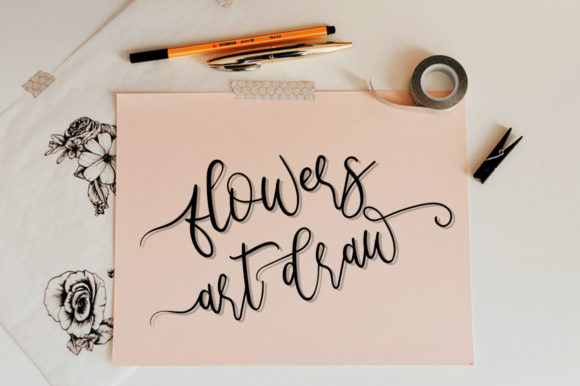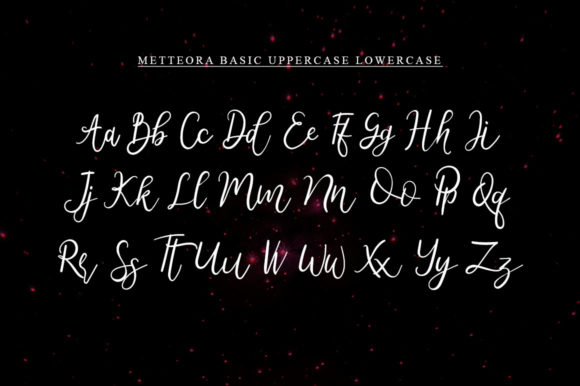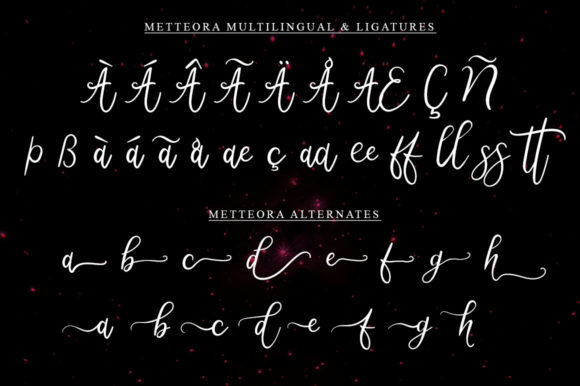
Introduction to Metteora Script Font
The Metteora is a lovely script font.
It has a truly handwritten look and feel which is perfect for adding a personal touch to your designs It can be used for greeting cards, branding, stationery design, social media, packaging, magazine layouts, prints, logos and more.
Metteora Script Font offers exceptional quality and versatility, making it a valuable addition to your design toolkit. Whether you’re creating for personal projects or commercial use, Metteora Script Font delivers professional results.